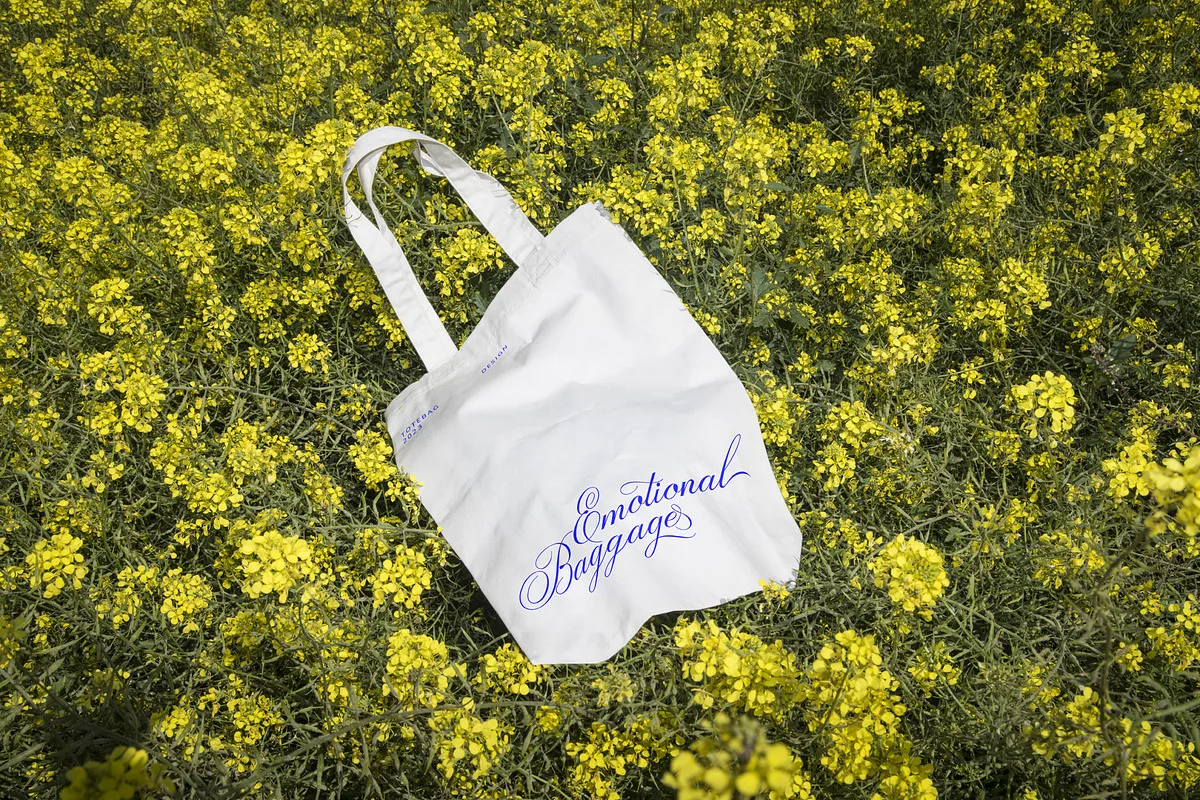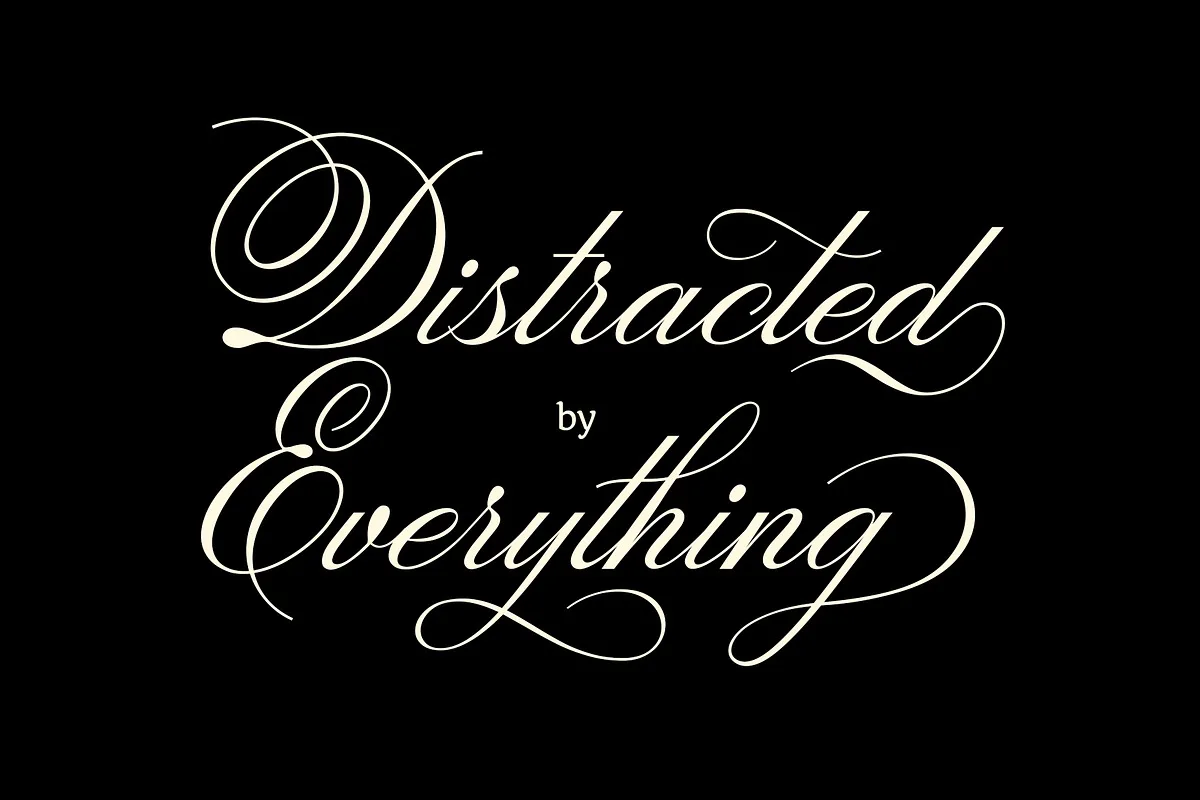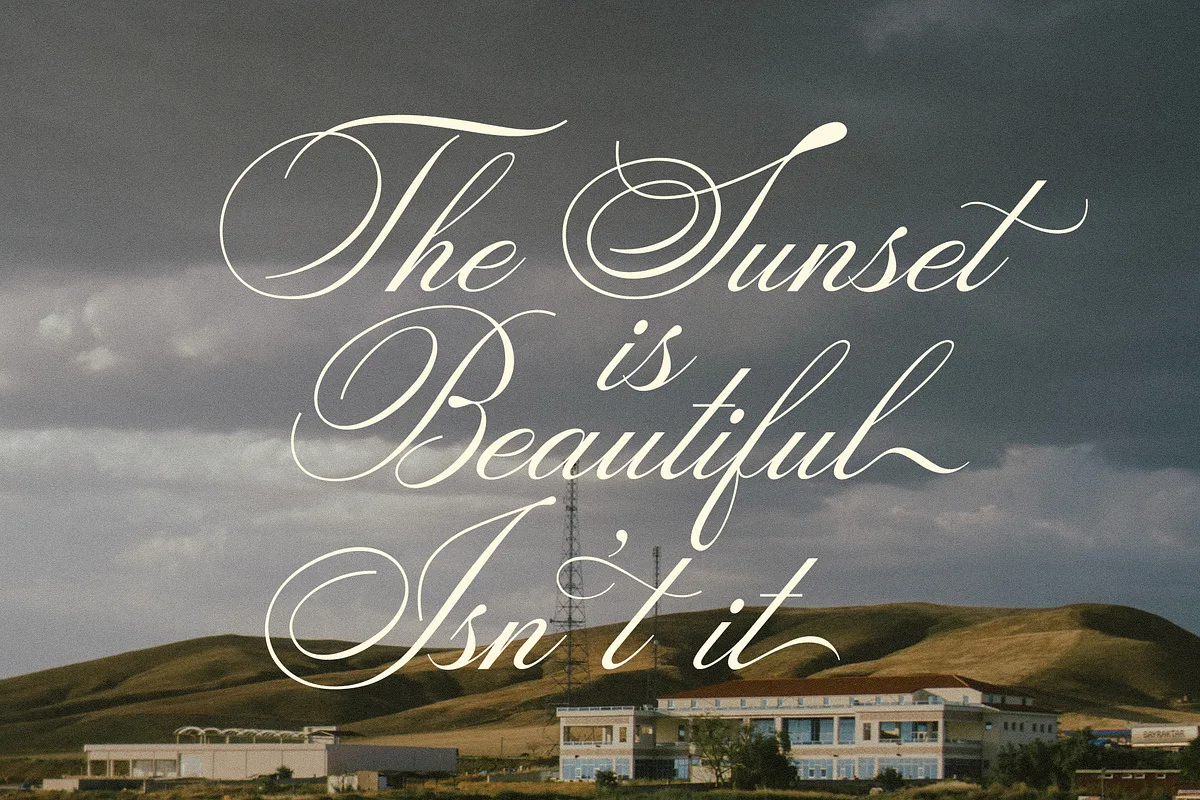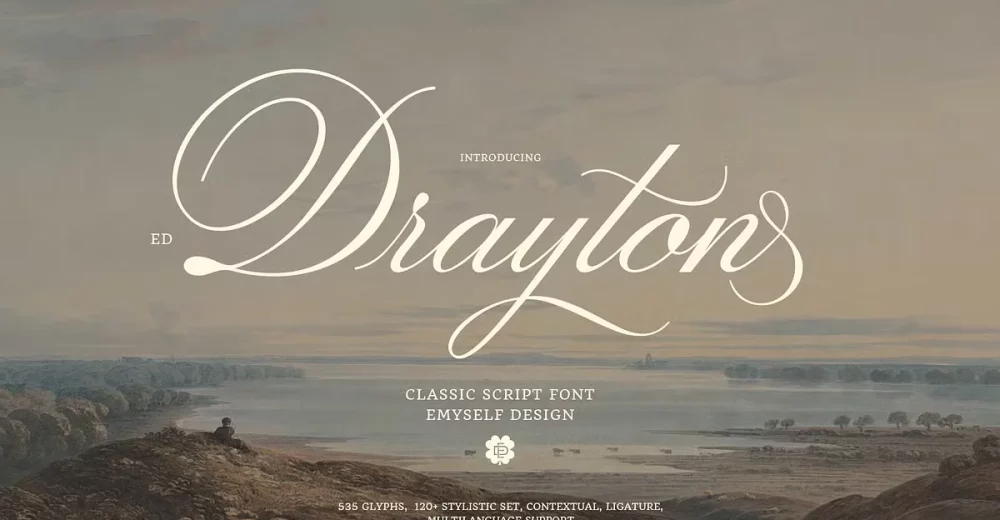
ED Drayton is a classic script font with an elegant look. This font consists of 535 glyphs and is equipped with 120+ stylistic sets, ligatures, contextual and multi-language support which further complements this font so that it can be used in various designs.
It is perfect for your creative projects such as Logotype, printed quotes, invitations, cards, product packaging, headers, Letterhead, Apparel, Web design, Magazine, Book, etc.